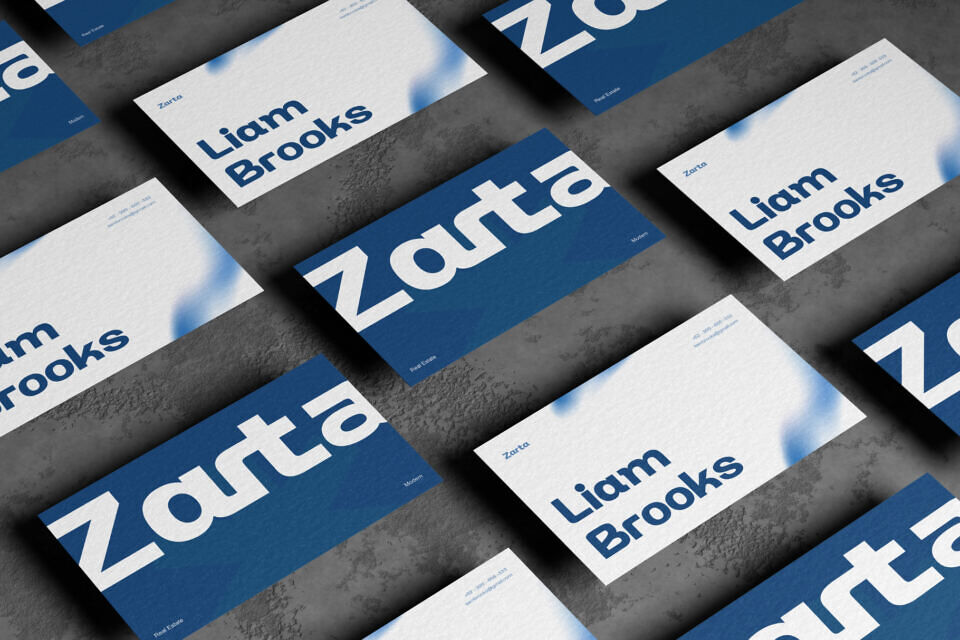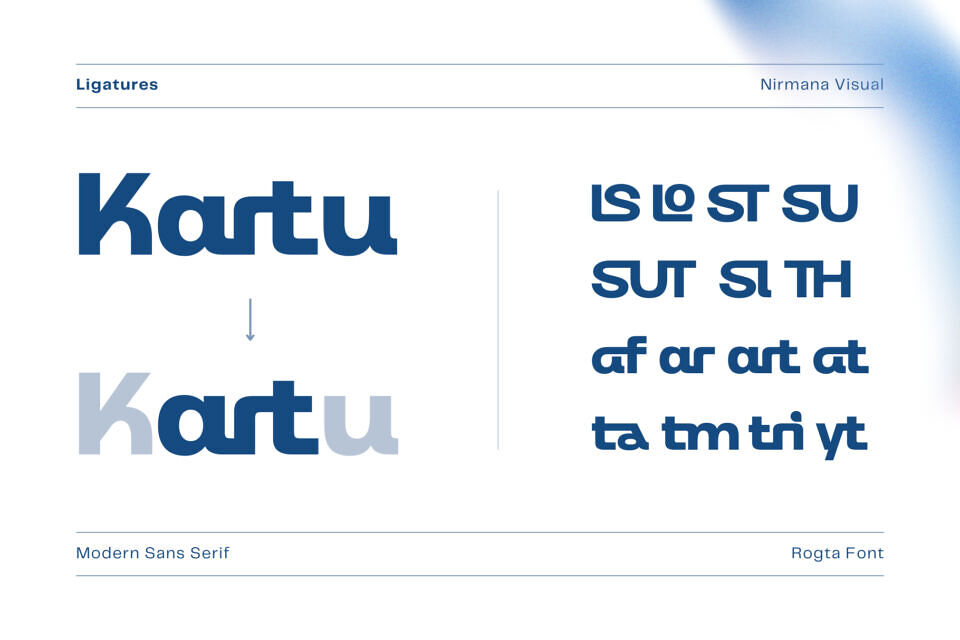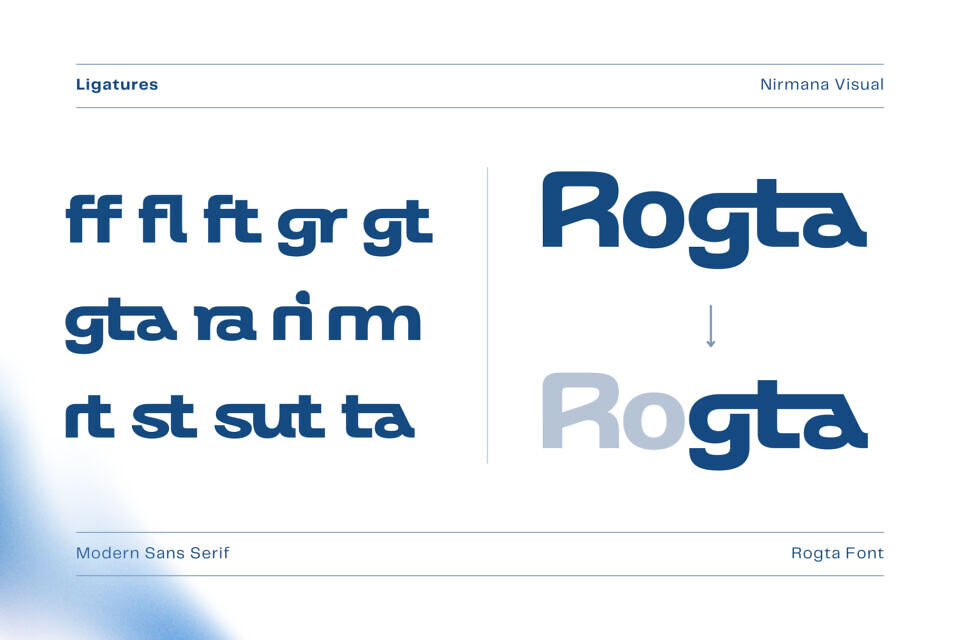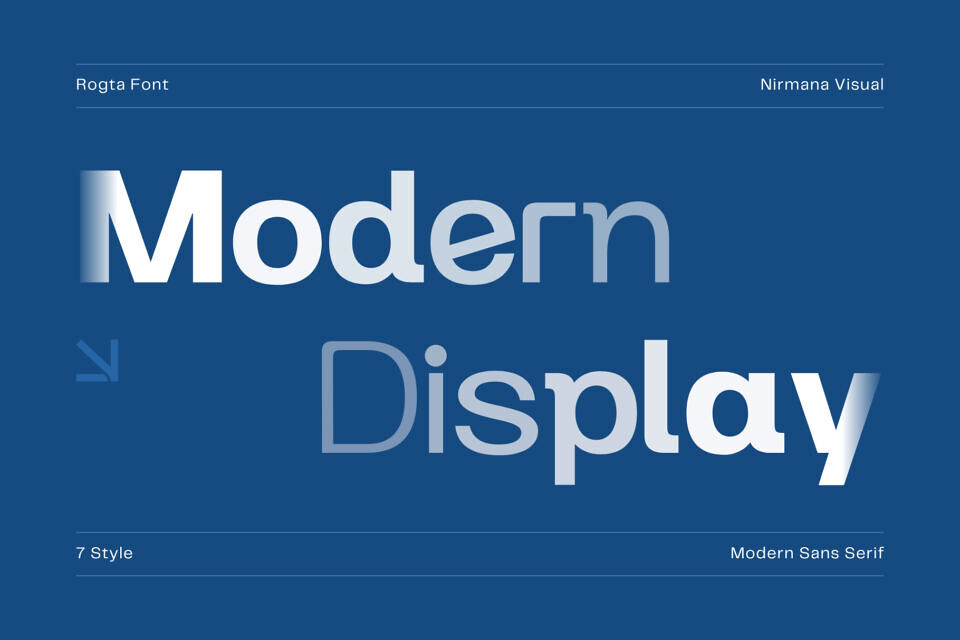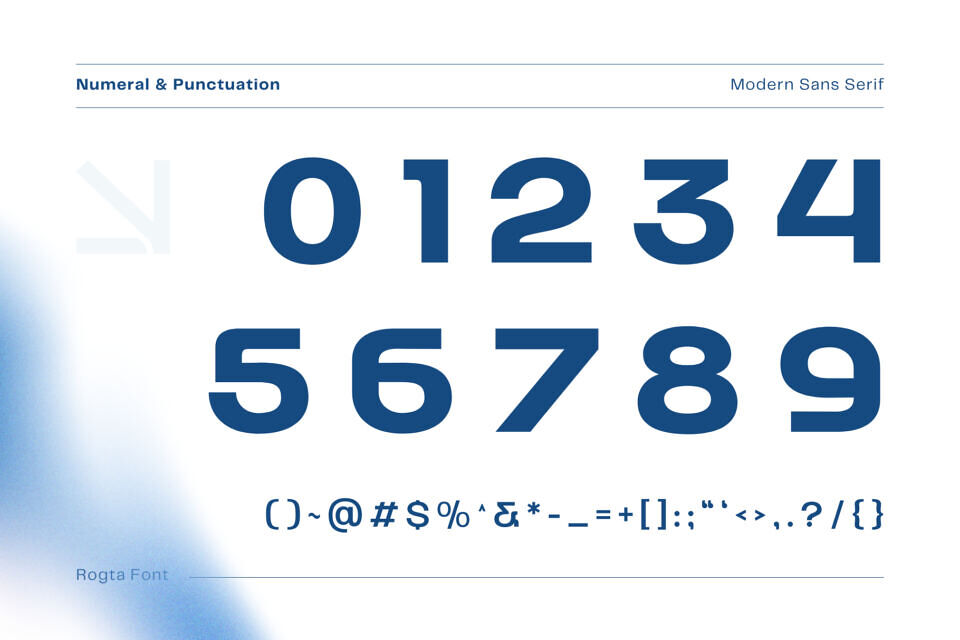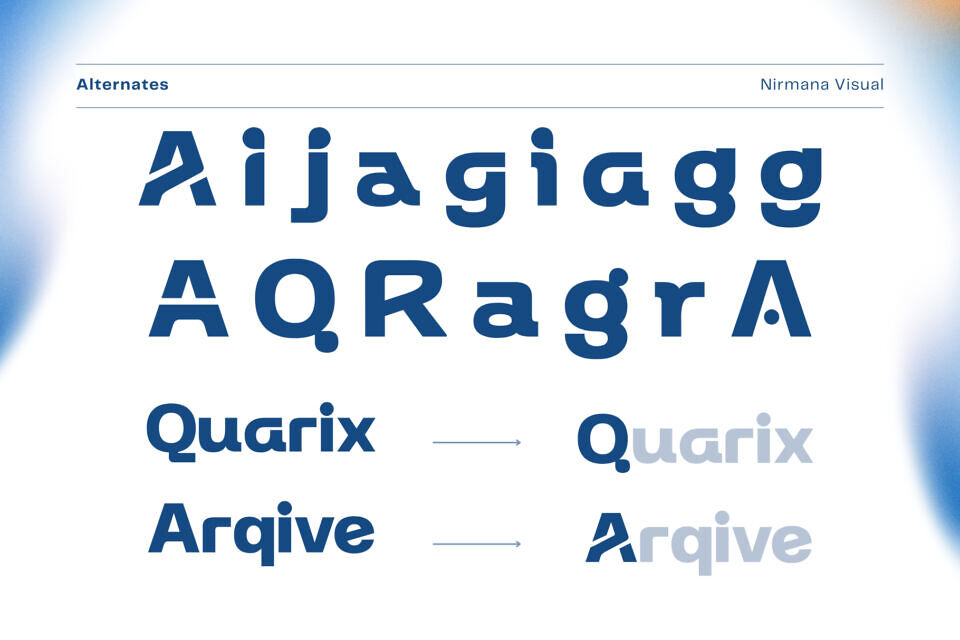
Rogta Modern Font
Rogta offers beautiful typographic harmony for a diversity of design projects, including logos & branding, social media posts, advertisements & product designs.
Designed by: Nirmana Visual